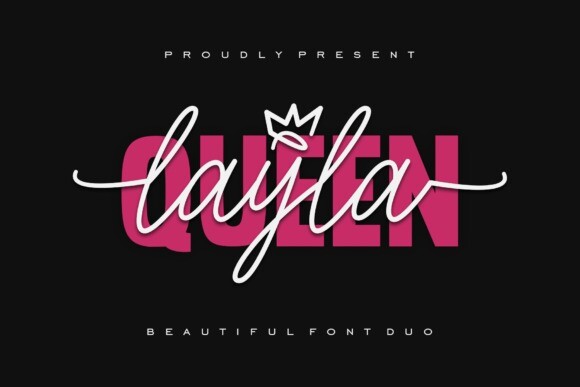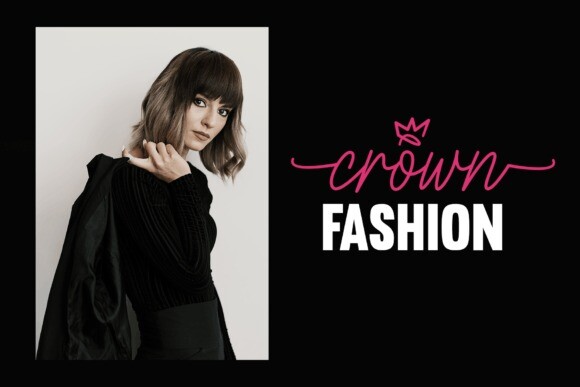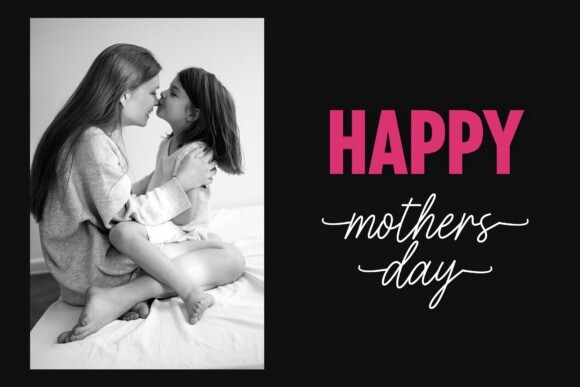
Queen Layla Font
Queen Layla Font is a beautiful and elegant crown font duo with two great integrated sans and script font shapes.
this is the answer for any job that requires a touch of femininity and elegance!
Be creative without limits by using two shapes at once!